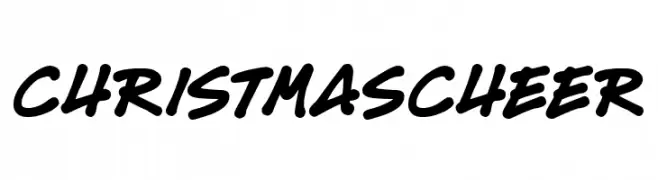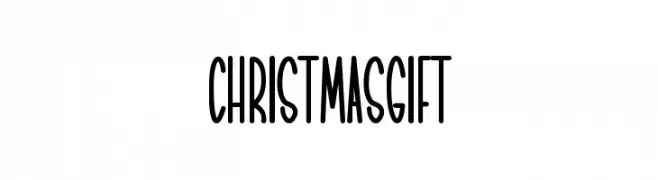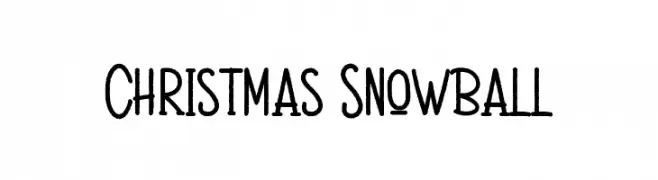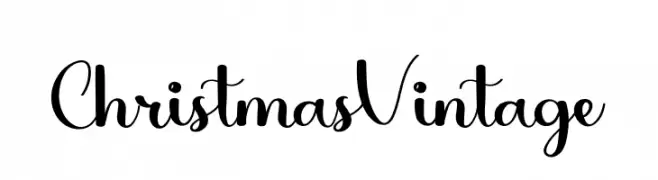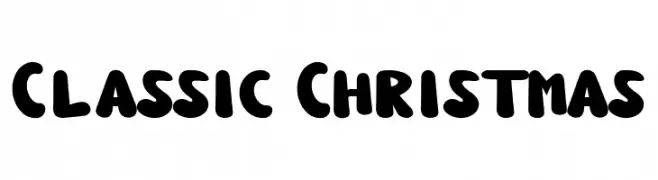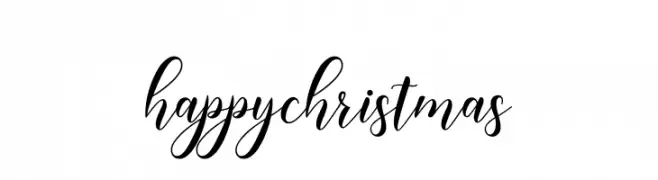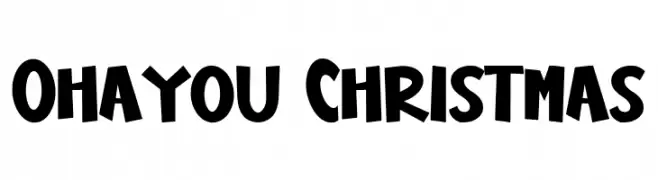
A playful, hand-drawn style font with bold, rounded strokes.
A festive, vintage script font with elegant, flowing curves.
A playful, bold font with a whimsical, hand-drawn style.
A playful, bold font with rounded, hand-drawn characters perfect for festive designs.
A graceful script font with flowing, interconnected letters and ornate flourishes.
A decorative script font with flowing, interconnected letters and calligraphic style.
An elegant, flowing script font with a natural handwritten style.
A bold, playful script font with smooth, flowing curves.
A playful, hand-drawn font with tall, narrow letters and a whimsical style.
A tall, slender, and whimsical font with a playful style.